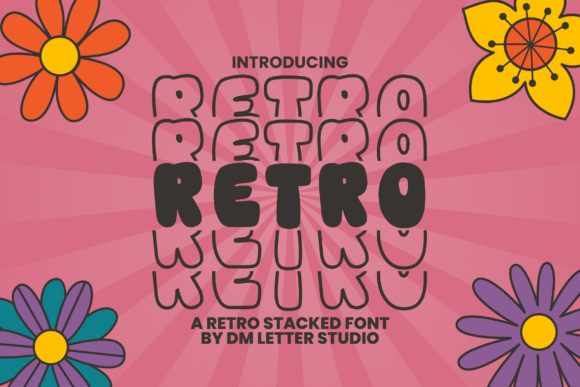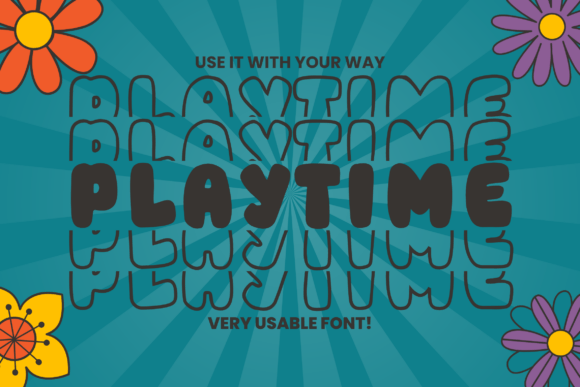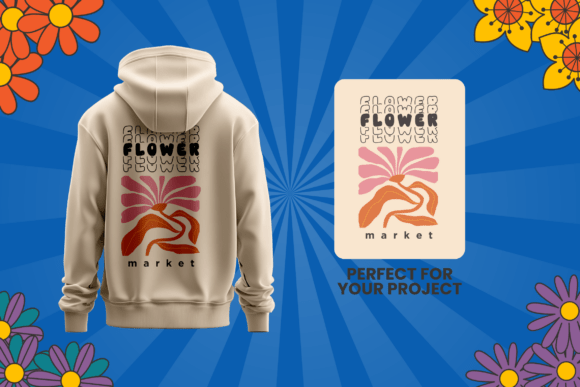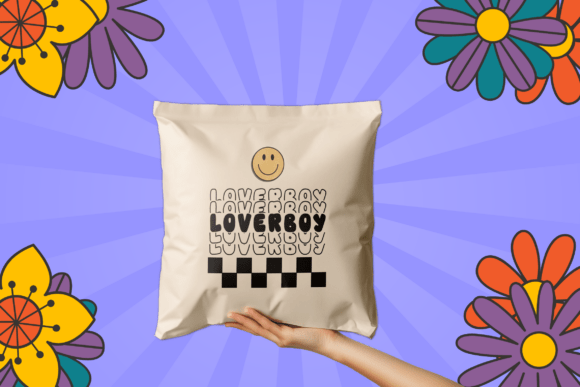
Retro Stacked Font
About the Retro Stacked Font
Meet Retro Stacked Font, a stunning font that brings a touch of elegance and professionalism to any design. Meet Retro Stacked, an irresistibly charming display font that embodies the electrifying spirit of the ’70s and ’80s with a modern twist. This typeface is a playful fusion of groovy, layered characters, brimming with confidence and an infectious splash of vintage appeal. Retro Stacked screams personality, making it nothing short of a revelation for punchy posters, captivating album covers, standout social media graphics, and a charismatic take on retro branding. This versatile font enlivens your designs with a refreshingly upbeat vibe, effortlessly complemented by vivid colors and eclectic layouts. Each letter has been meticulously crafted to transport you on a journey of nostalgia and joy, serving as an infusion of creative dynamism. If you’re a designer with an appreciation for striking retro undertones, Retro Stacked seals the deal with its audacious throwback energy.
Retro Stacked Font Usage Examples
Retro Stacked Font Example